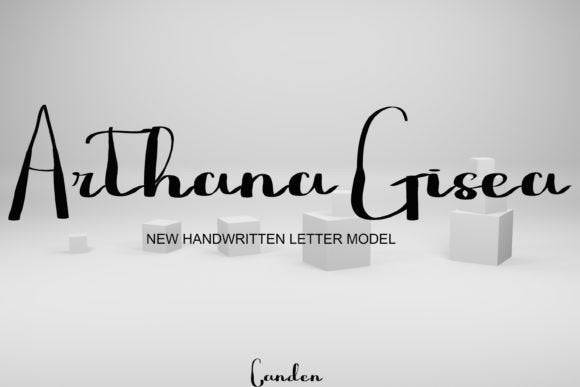
Arthana Gisea Font
Arthana Gisea is a simple, authentic yet stylish handwritten font. Its versatility makes it suitable for branding, signatures, wedding invitations, promotions, product packaging, logos, designs, or anything that needs a lovely, romantic accent.
- Branding
- Signatures
- Wedding invitations
- Product packaging